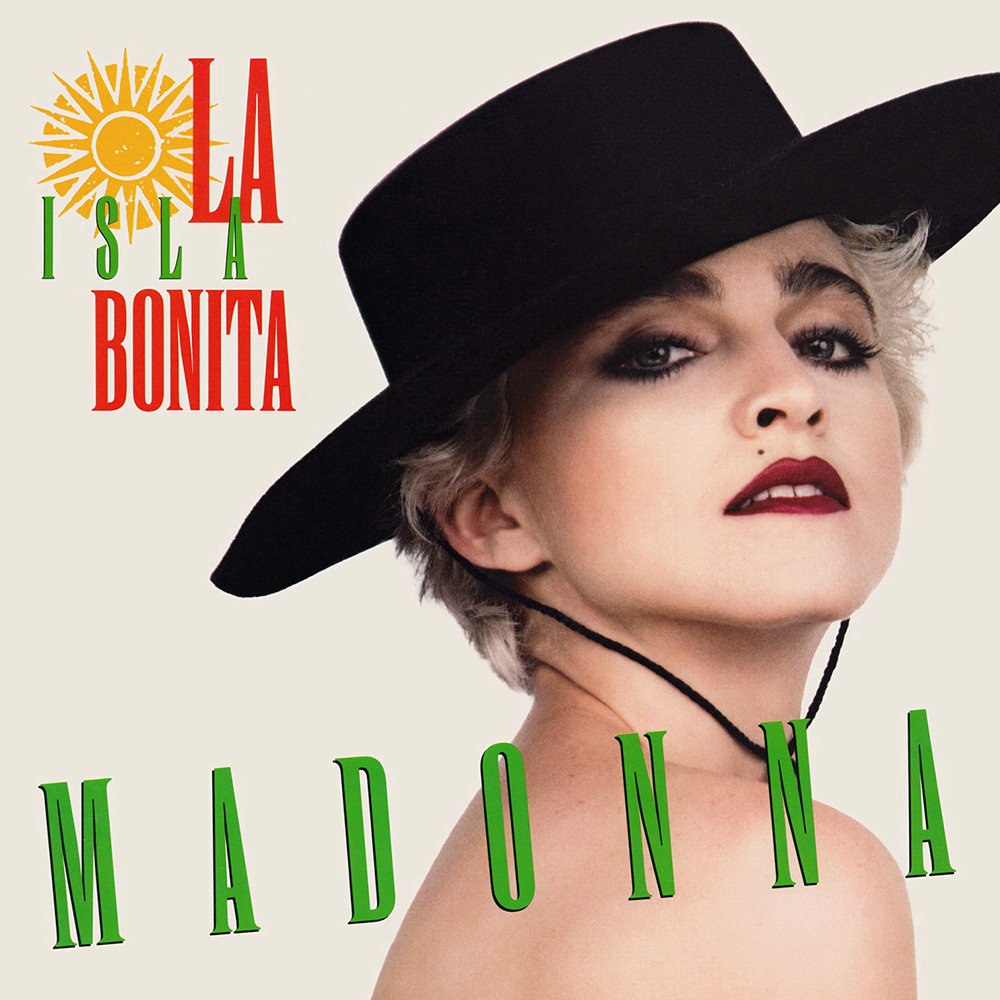
La Isla Bonita Font
Fonts in UseLa Isla Bonita a single released by Madonna from her third studio album, "True Blue," which was also released in 1986. The album was a commercial success, selling over 25 million copies worldwide and spawning other hit singles such as "Papa Don't Preach" and "Open Your Heart."
The album cover features a condensed serif font resembling Runic, a Monotype typeface with 19th-century wood type flavor, characterized by tall, lean letters, high x-height, and delicate serifs.